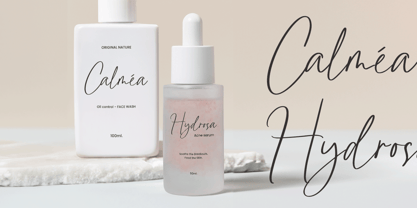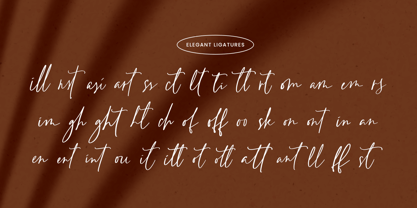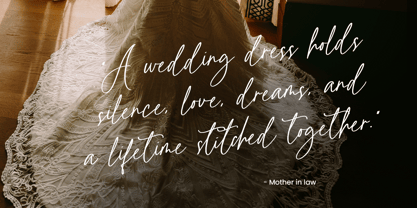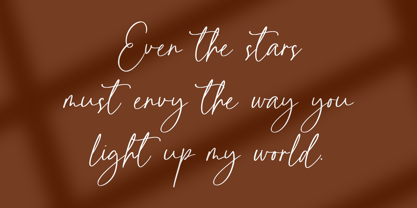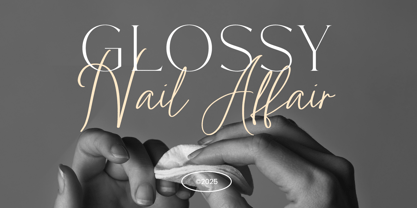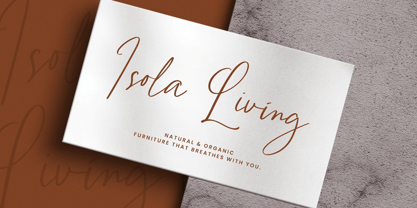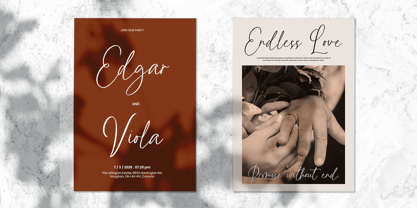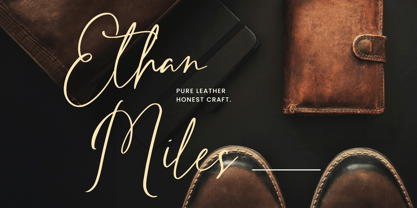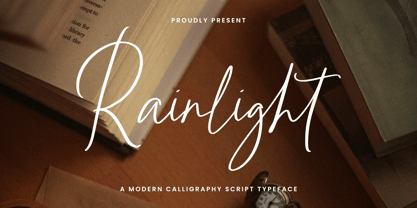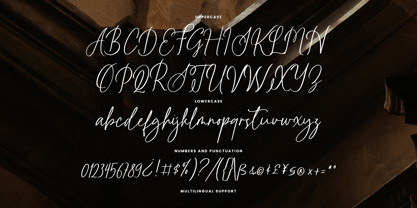
Rainlight
by Arterfak Project
The Rainlight Font Family was designed by Ahmad Ramzi Fahruddin and published by Arterfak Project. Rainlight contains 1 styles.
Rainlight is a beautiful handwritten script, joyfully crafted with clean strokes and bouncy letterforms that resemble natural handwriting. This charming font brings a soft, heartfelt touch to your designs — chic, romantic, and deeply personal.
Perfect for weddings, greeting cards, logotypes, branding, social media posts, websites, signatures, labels, and more. Rainlight also features a variety of special characters, giving you multiple typographic styles to explore and express your creativity.